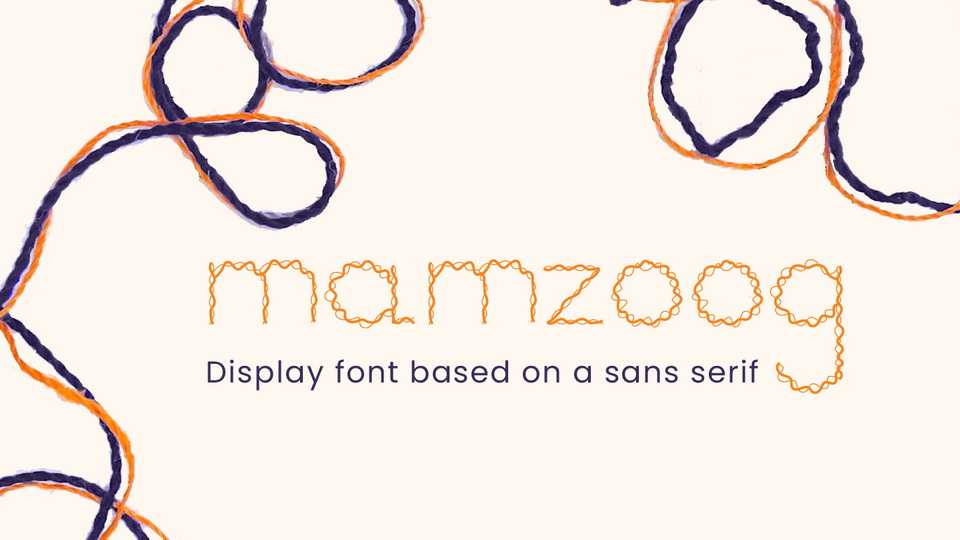
Download Mamzoog font, a display typeface inspired by the Islamic geometric patterns, and more specifically the braids on one of the walls in Al Allah Mosque in Egypt. Mamzoog is modern, confident, art and soft.
Designer: Ganna Kareem